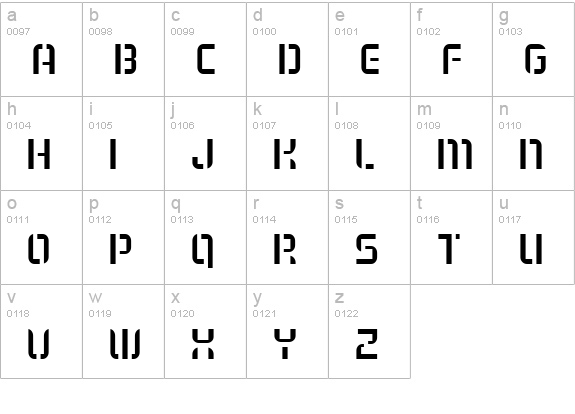
Modsten Roman Font Details
Modsten Roman is a classic and elegant font that exudes sophistication and style. Its timeless design makes it perfect for a wide range of projects, from branding to invitations to editorial pieces. The clean lines and balanced proportions of Modsten Roman make it a versatile and easy-to-read typeface that can elevate any design. What sets Modsten Roman apart is that it is not only beautifully crafted and meticulously designed, but it is also available for free download at FontsMarket.com. This means that you can add this stunning font to your collection without any cost, allowing you to enhance your projects with a touch of elegance and refinement without breaking the bank. Whether you're working on a print or digital project, Modsten Roman will bring a sense of sophistication and professionalism to your designs. Download this exquisite font for free today at FontsMarket.com and elevate your typography game to the next level.